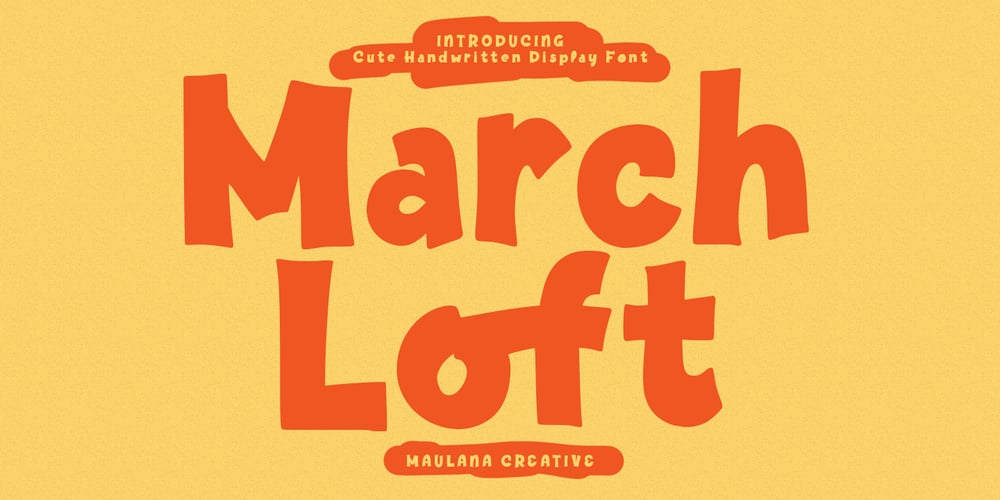
March Loft Font Family was designed by Gilang Maulana and published by Maulana Creative. March Loft contains 1 styles and family package options. March Loft is a casual fun handwritten display font. With bold stroke, fun character. To give you an extra creative work. March loft font support multilingual more than 100+ language. This font is good for logo design, Social media, Movie Titles, Books Titles, a short text even a long text letter and good for your secondary text font with sans or serif. Make a stunning work with March Loft font. Cheers, Maulana Creative